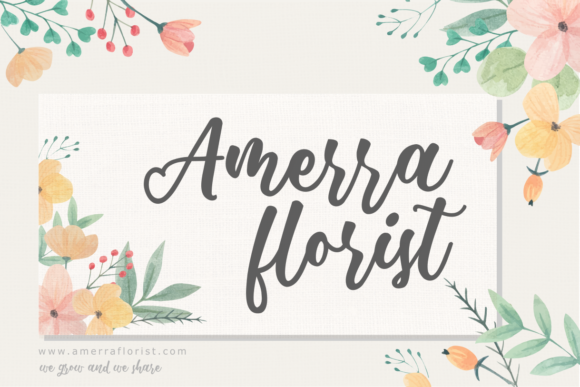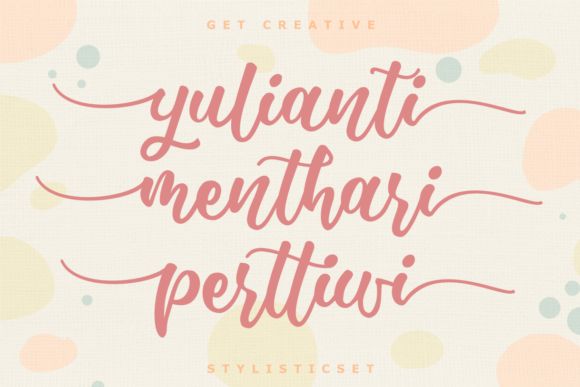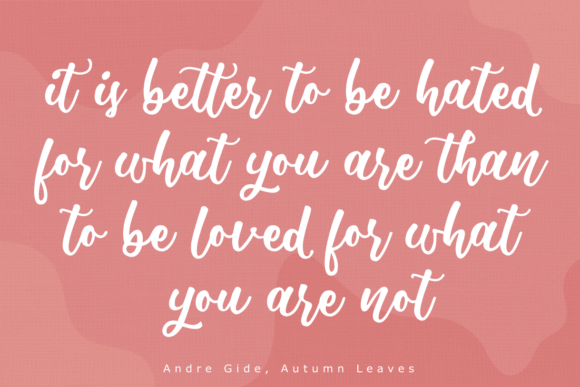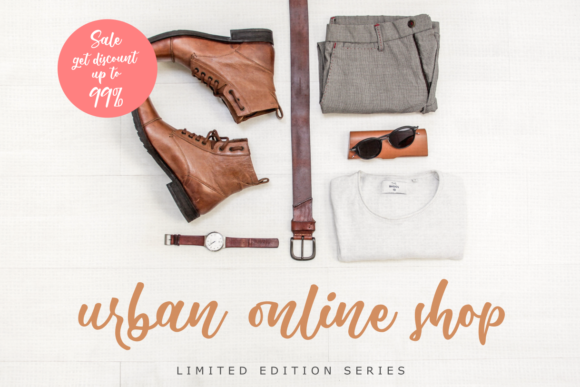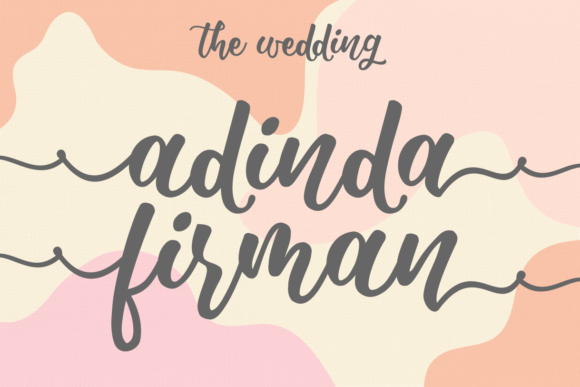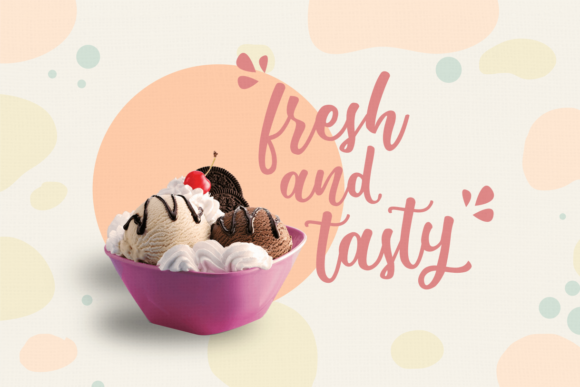
Introduction to Menthari Font
Menthari feels incredibly elegant and flowing.
It looks stunning on wedding invitations, thank you cards, quotes, greeting cards, logos, business cards and every other design which needs a handwritten touch It features a varying baseline, smooth lines, gorgeous glyphs and stunning alternates.
Key Features of Menthari Font
Menthari Font offers exceptional quality and versatility, making it a valuable addition to your design toolkit. Whether you’re creating for personal projects or commercial use, Menthari Font delivers professional results.